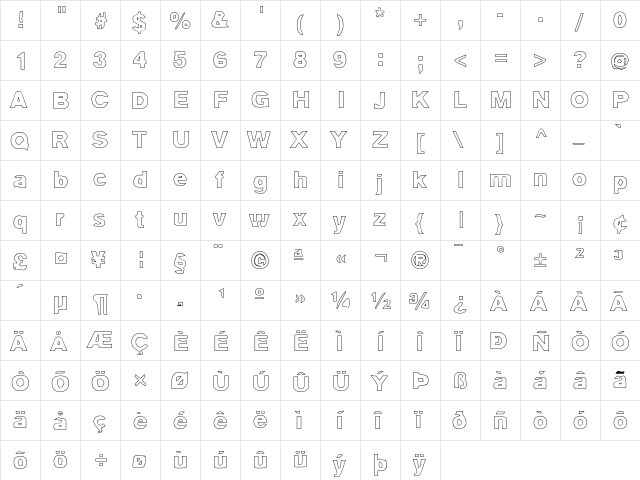
Autotrace Outline
| Style | Outline |
Design Context for Autotrace Typeface
Autotrace is built around its visual character rather than neutral utility — its distinctive forms are designed to make an impression at display sizes.
Font Pairing: Pair with a clean neutral sans-serif for body copy to let Autotrace's character lead without overwhelming the composition.
Pro Tip: Use Autotrace exclusively at display sizes — it was designed to be seen, not read at length. Let a neutral companion handle body copy.